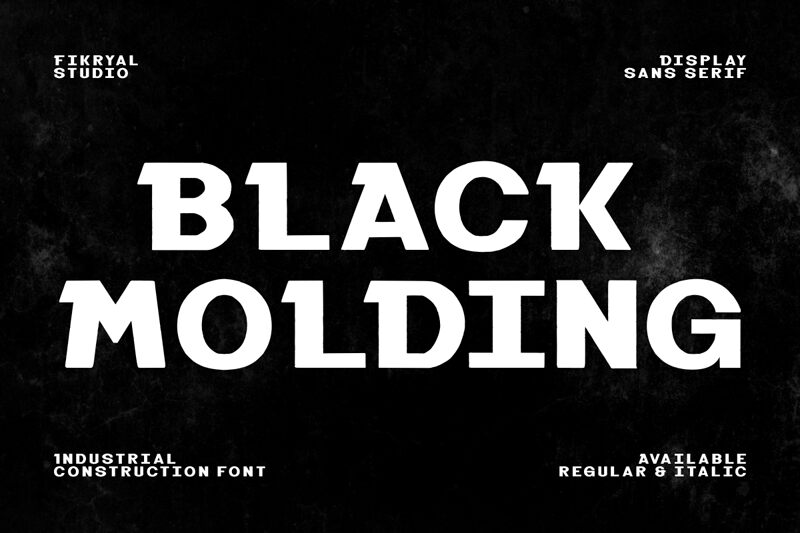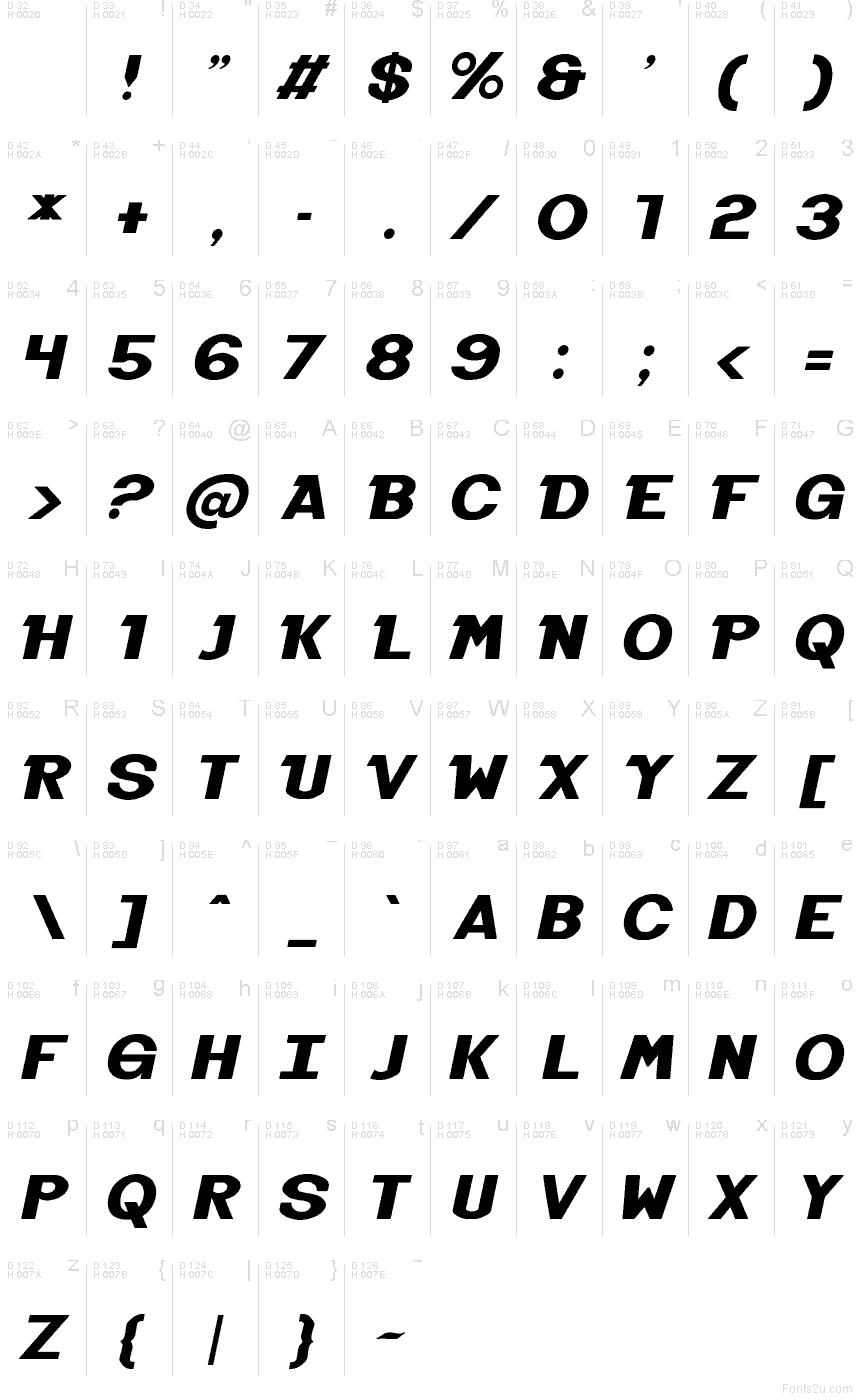
Black Molding Italic
Black Molding Italic font by Muhamad Fikry Nuralif of Fikryal Studio is a free bold italic sans typeface from the Black Molding family, with chunky weight and punchy forward slant. Its standout detail is the “molded” bite marks and sharp, machined corners that make the wordshape feel cast, carved, and ready to move—clean enough to read fast, but gritty enough to leave a bruise.
Using Black Molding Italic, you’ll get instant energy on sports branding, streetwear tags, automotive posters, game titles, punchy merch, event flyers, and YouTube thumbnails. Keep it large for maximum impact, and pair this free font with a simple neutral sans for body copy so the rugged rhythm stays in the spotlight.